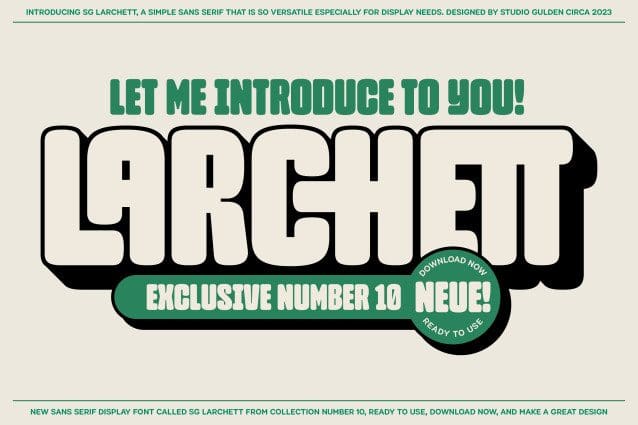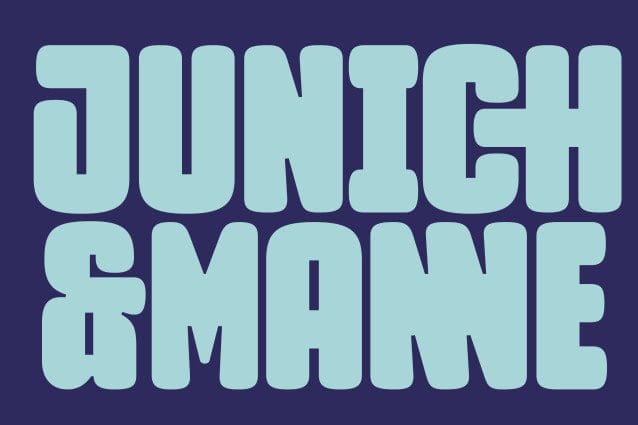
SG Larchett Font
SG Larchett Font is a stunning new sans serif font that is perfect for display purposes. It features clean, elegant lines and a modern, minimalist design that is both stylish and versatile. The font is characterized by its balanced proportions, uniform stroke width, and subtle variations in letterform, giving it a distinctive and sophisticated appearance.